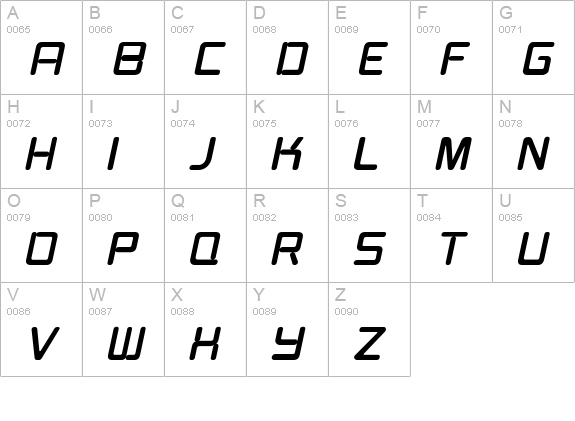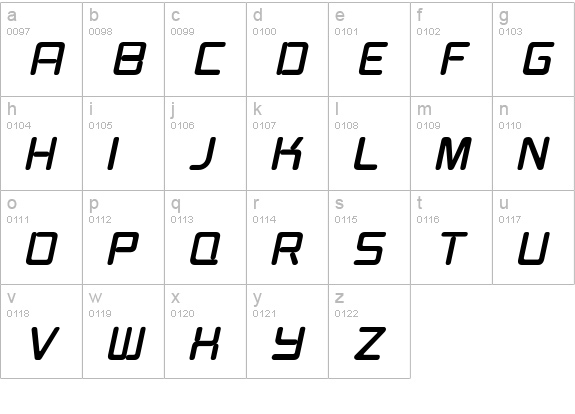
Burger Joint Neon Italic JL is a distinctive, italic variant in the Burger typeface family \xE2\x80\x94 well suited to design and typography projects.
Burger Joint Neon Italic JL font is a bold and eye-catching typeface that will make your designs stand out. With its neon-inspired style, this font is perfect for projects that require a fun and vibrant look. The italicized characters add a touch of modernity and sophistication to your text, making it ideal for advertising, branding, and signage. The best part about Burger Joint Neon Italic JL font is that it is free to download at FontsMarket.com. This means you can easily access this unique and stylish font for all your creative projects without any cost. Don't miss out on the opportunity to enhance your designs with this fantastic font - download it today and let your creativity shine!